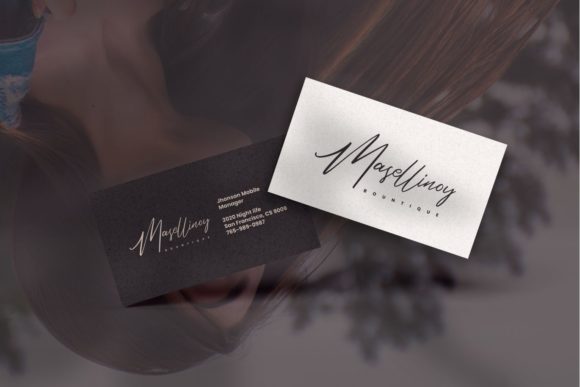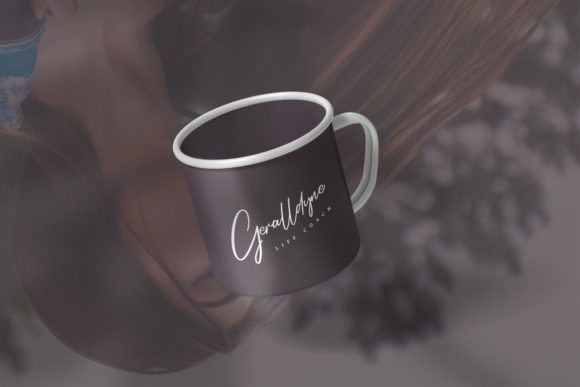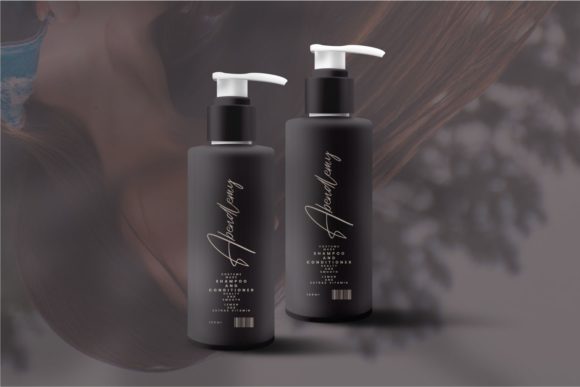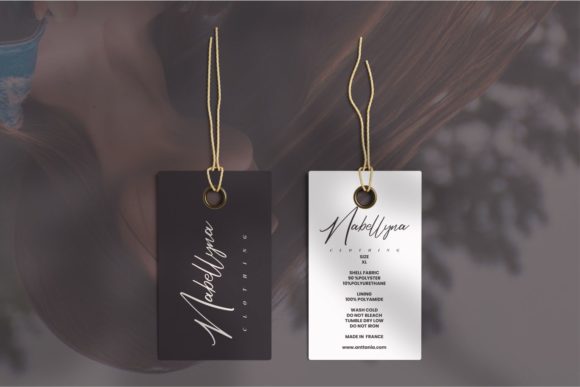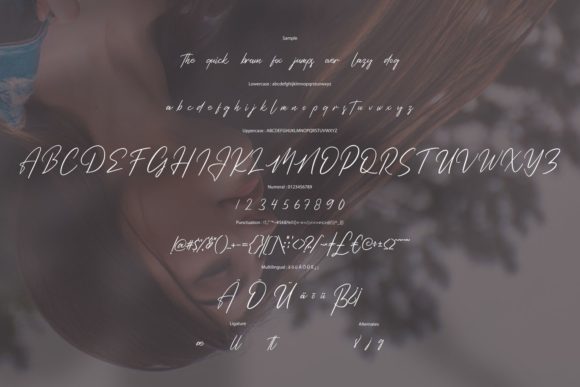
Malactlicos Font
About Malactlicos Font
“Malactlicos” is a stylish and delicate script font that exudes a clean, thin, and smooth vibe. With its refined and elegant design, this font is a versatile choice that can elevate any design you incorporate it into.
The font’s clean lines and slender strokes lend it an air of sophistication and delicacy. Its smooth and polished appearance makes it suitable for a wide range of design projects, ensuring that it seamlessly integrates into various contexts.
When applied to your designs, “Malactlicos” will undoubtedly make an impact. Its stylish and delicate nature adds a touch of elegance and refinement, enhancing the overall aesthetic of your creations. No matter the project, whether it’s branding, invitations, logos, or more, this font is sure to elevate the visual appeal and leave a lasting impression.
In essence, “Malactlicos” is not just a font—it’s a design asset that brings a sense of style and finesse to your work. Its clean, thin, and smooth characteristics make it a versatile tool for adding a touch of sophistication to any design you choose.